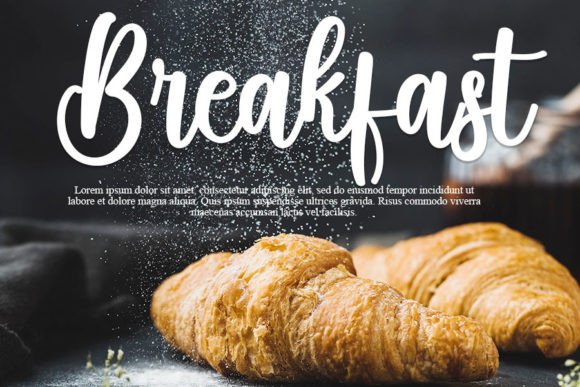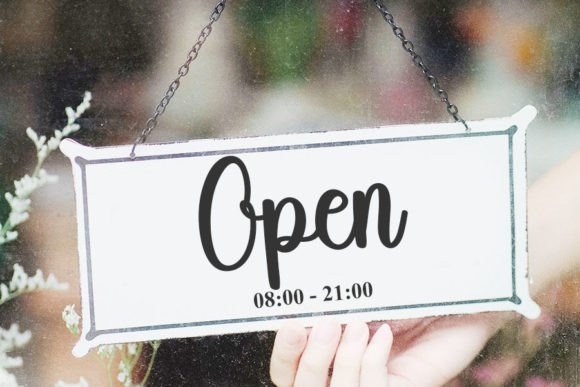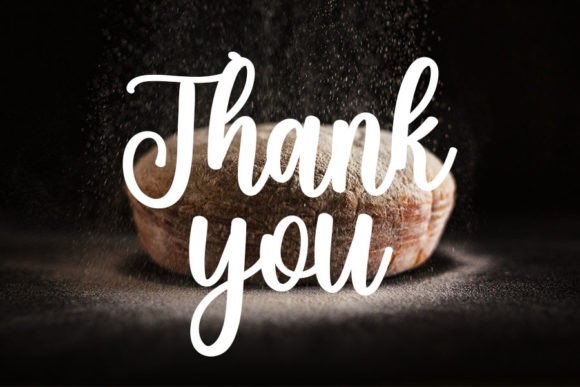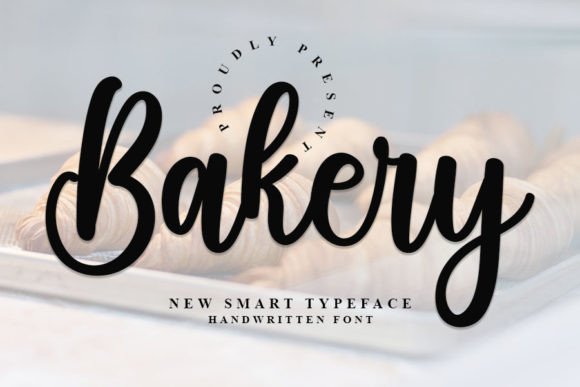
Bakery Font: Elevate Your Designs with Elegance and Class
Are you a designer or crafter looking for a font that exudes sophistication and style? Look no further than Bakery Font, a trendy handwritten font that brings a contemporary atmosphere and impeccable form to your design projects. Inspired by timeless classic calligraphy, Bakery Font is the perfect addition to any design that requires elegance and class.
The Inspiration Behind Bakery Font
Bakery Font draws its inspiration from traditional calligraphy, with a modern twist. The font’s creator aimed to capture the essence of classic calligraphy and infuse it with a contemporary feel, making it perfect for designers who want to add a touch of sophistication to their work. The result is a font that is both elegant and modern, with a unique character that sets it apart from other fonts.
Key Features of Bakery Font
- Trendy Handwritten Style: Bakery Font boasts a trendy handwritten style that adds a personal touch to any design project.
- Contemporary Atmosphere: The font’s modern design ensures that it fits seamlessly into contemporary designs, making it perfect for designers who want to create fresh and modern work.
- Impeccable Form: Bakery Font’s impeccable form ensures that it is legible and easy to read, making it perfect for body text and headings.
- Elegance and Class: The font’s classic calligraphy inspiration gives it an air of elegance and class, making it perfect for designs that require a sophisticated touch.
Uses of Bakery Font
Bakery Font is versatile and can be used in a variety of design projects, including:
- Branding and Logo Design: The font’s unique character makes it perfect for branding and logo design, where a distinctive font can make all the difference.
- Wedding and Event Design: Bakery Font’s elegant and sophisticated feel makes it perfect for wedding and event design, where a touch of class is required.
- Packaging Design: The font’s modern design and impeccable form make it perfect for packaging design, where a clear and legible font is essential.
- Digital Design: Bakery Font can be used in digital design, including website headers, social media graphics, and more.
Why Choose Bakery Font?
With so many fonts available, why choose Bakery Font? Here are just a few reasons:
- Unique Character: Bakery Font has a unique character that sets it apart from other fonts, making it perfect for designers who want to create distinctive work.
- High-Quality Design: The font’s high-quality design ensures that it is legible and easy to read, making it perfect for body text and headings.
Tips for Using Bakery Font
Here are a few tips for using Bakery Font in your design projects:
- Use it as a Headline Font: Bakery Font is perfect for headlines and titles, where its elegant and sophisticated feel can shine.
- Pair it with a Sans-Serif Font: Pairing Bakery Font with a sans-serif font can create a beautiful contrast that adds visual interest to your design.
- Experiment with Colors: Bakery Font looks great in a variety of colors, so don’t be afraid to experiment and find the perfect color for your design.
Bakery Font is a trendy handwritten font that brings elegance and class to any design project. With its impeccable form, contemporary atmosphere, and unique character, it’s the perfect addition to any design that requires sophistication and style. Whether you’re a designer or crafter, Bakery Font is a must-have font that can elevate your designs and take them to the next level.